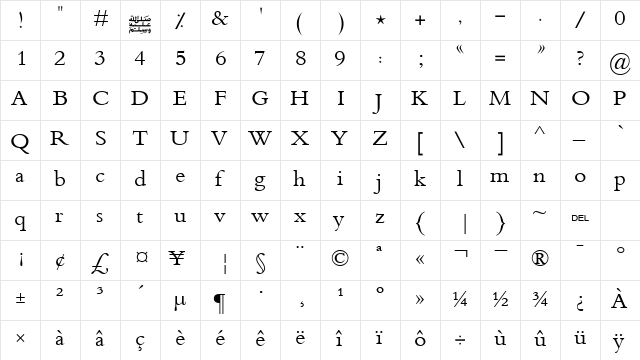
AdvertisingLight Regular
Design Context for AdvertisingLight Typeface
AdvertisingLight offers clean, dependable letterforms without strong stylistic allegiance, making it a practical choice for designers who need flexibility. The delicate stroke weight brings airiness and refinement to layouts.